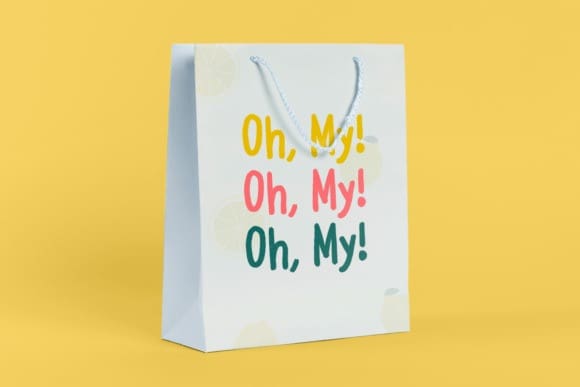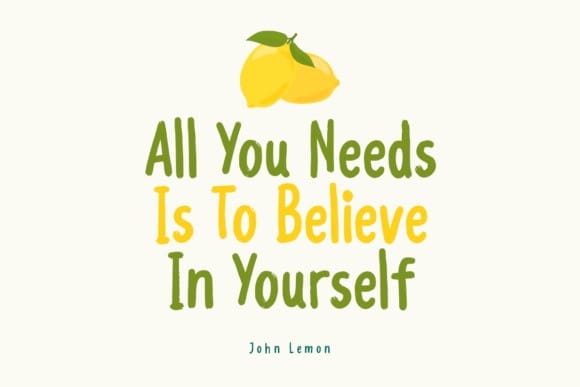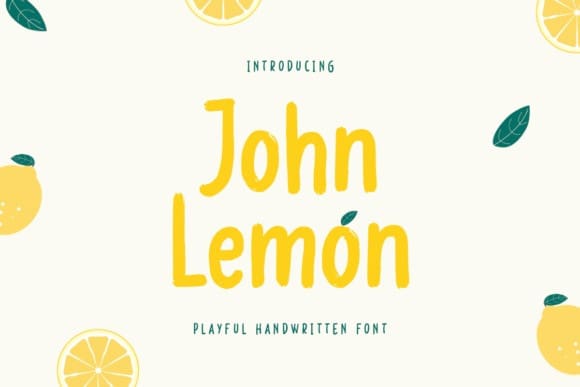
John Lemon Font
John Lemon Font is a playful handwritten font that’s perfect for headlines, thumbnails, or merchandise. This font is specially crafted for projects such as banners, posters, flyers, website design, product packaging, cards, and more.